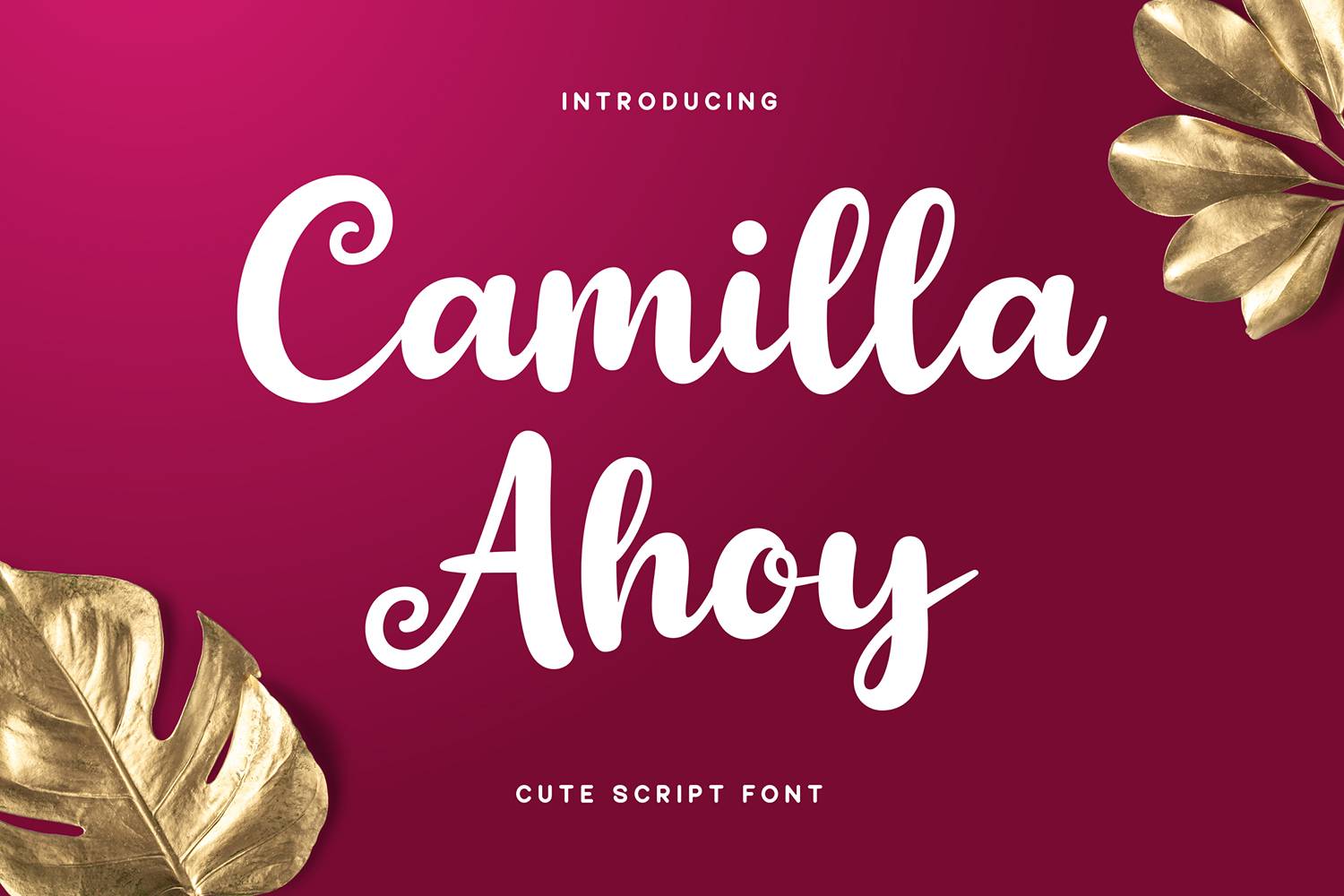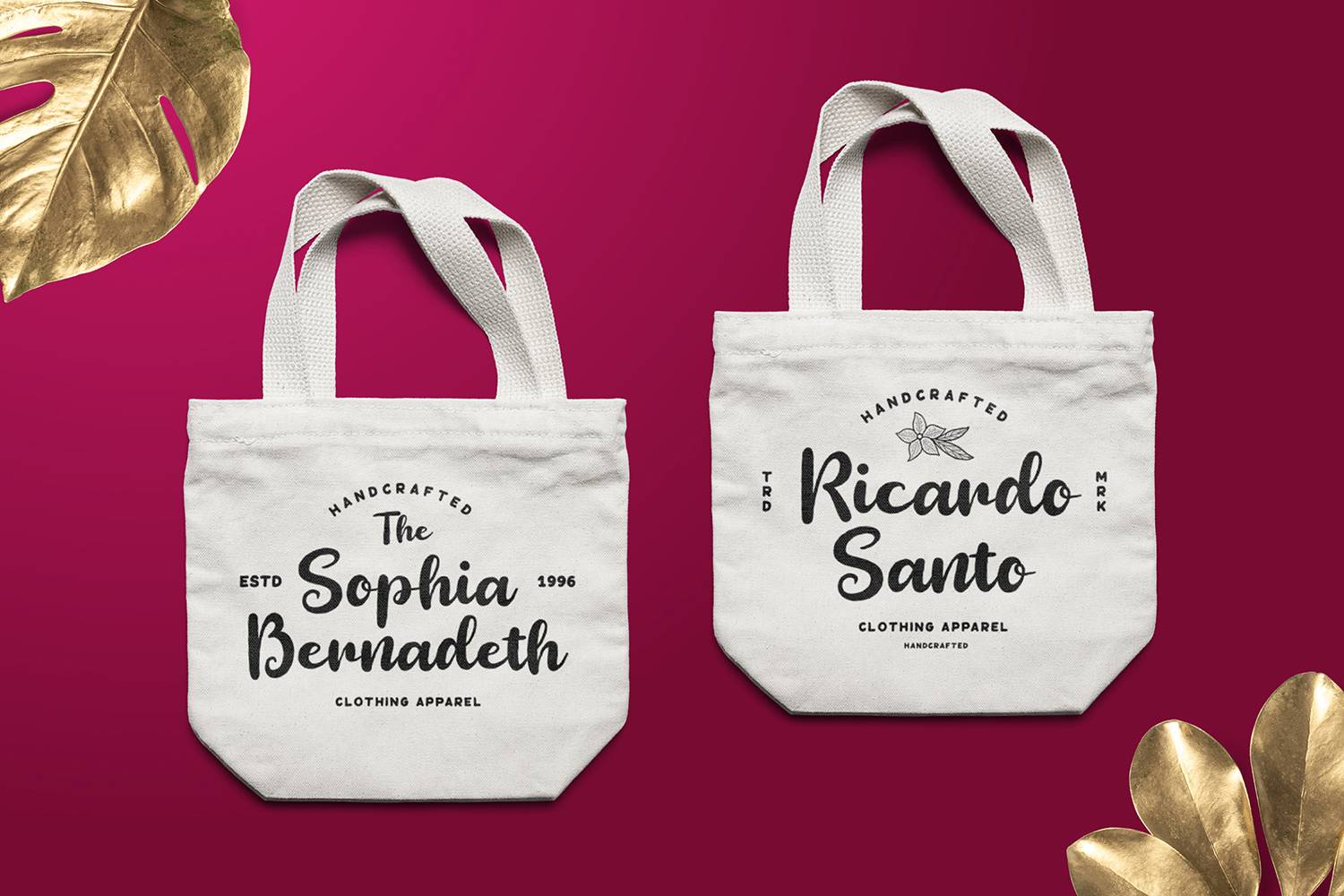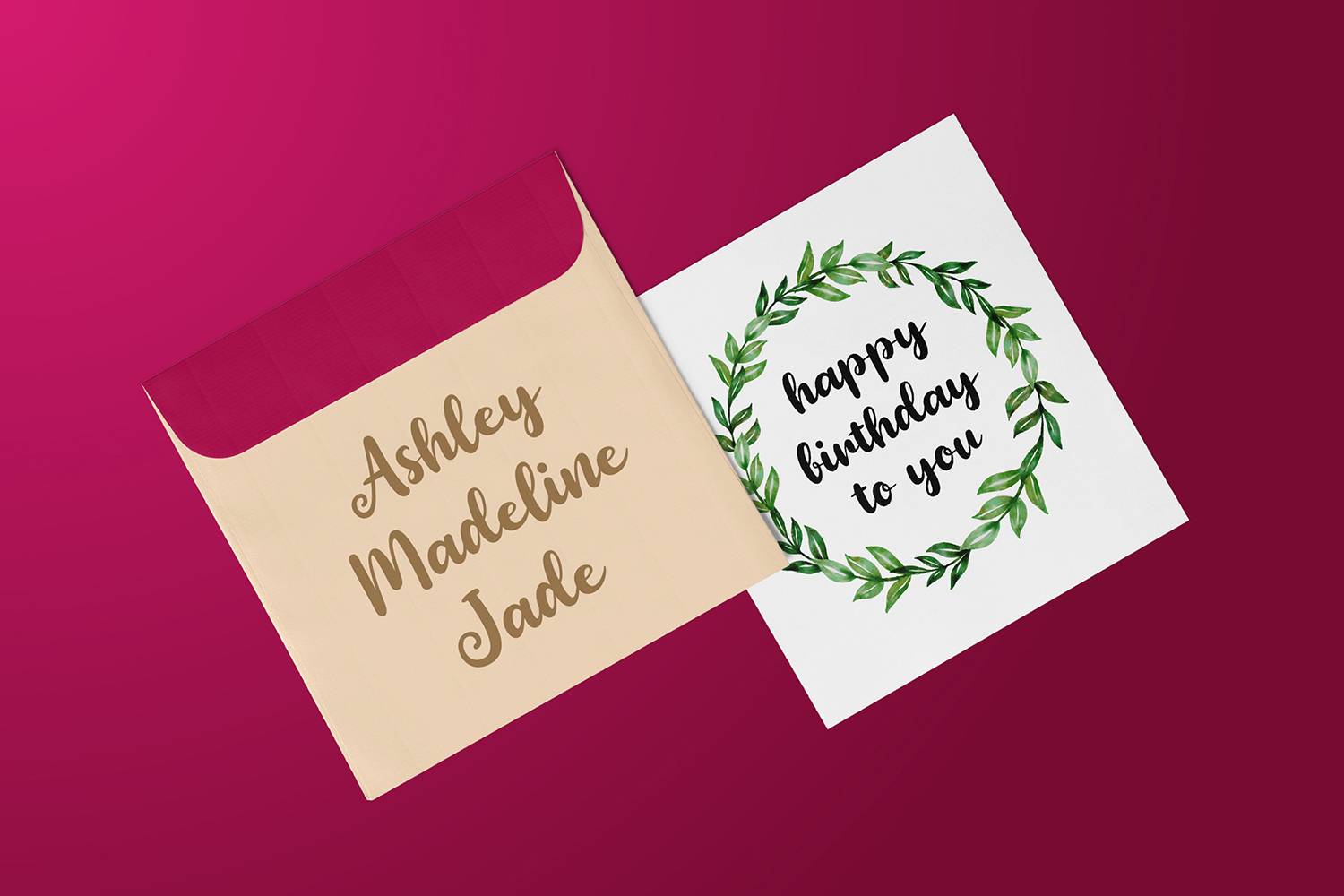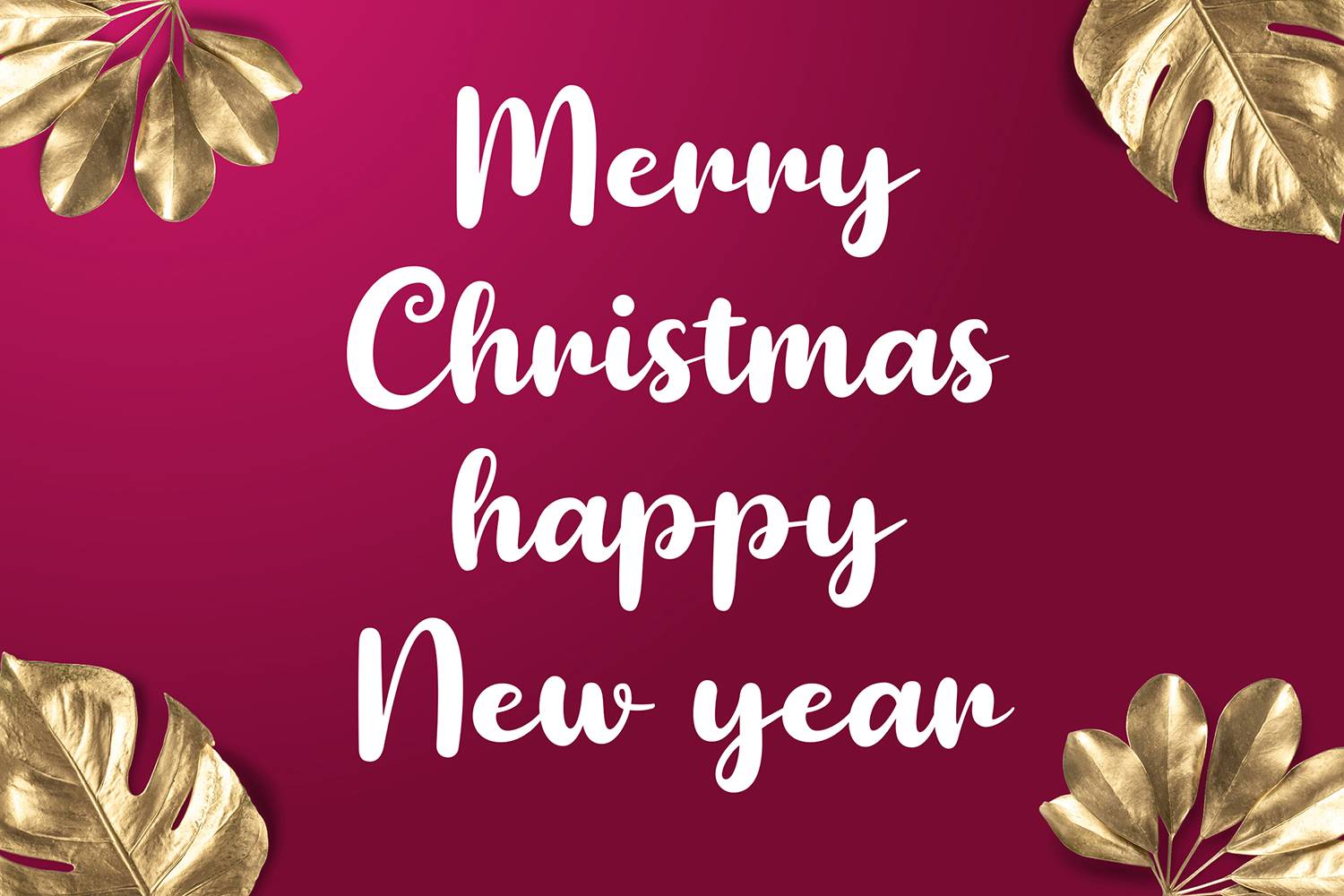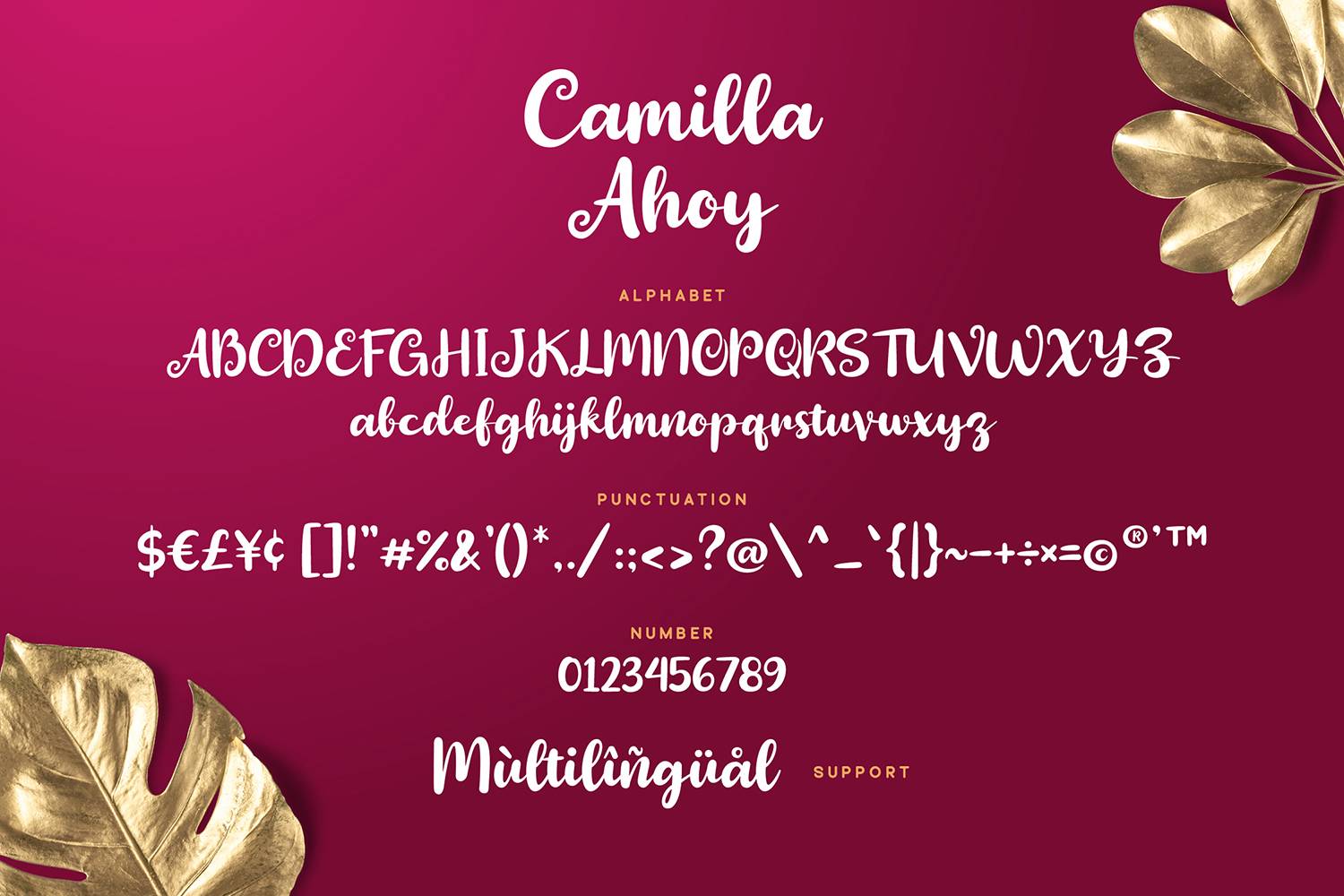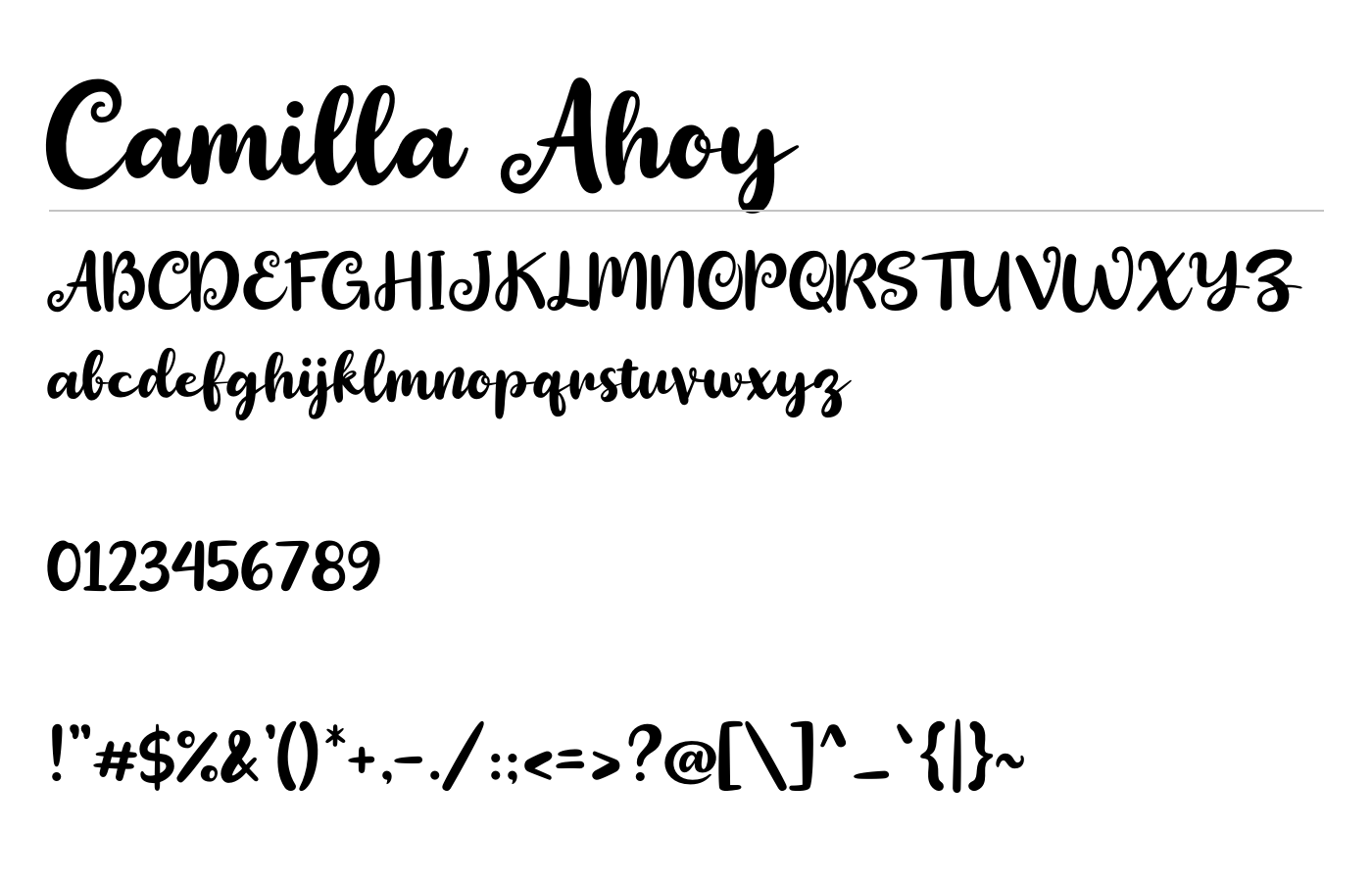
Camilla Ahoy is a charming script font with playful, smooth strokes that give it a friendly and inviting personality. Its rounded, connected letterforms and moderate contrast make it perfect for casual, creative projects like invitations, branding, and social media graphics. This font brings a warm, approachable feel that works well for lifestyle and boutique brands seeking a personal touch.
Camilla Ahoy Font
About Camilla Ahoy Font
| Font family | Camilla Ahoy Font |
| Designer | Akhmad Reza Fauzi |